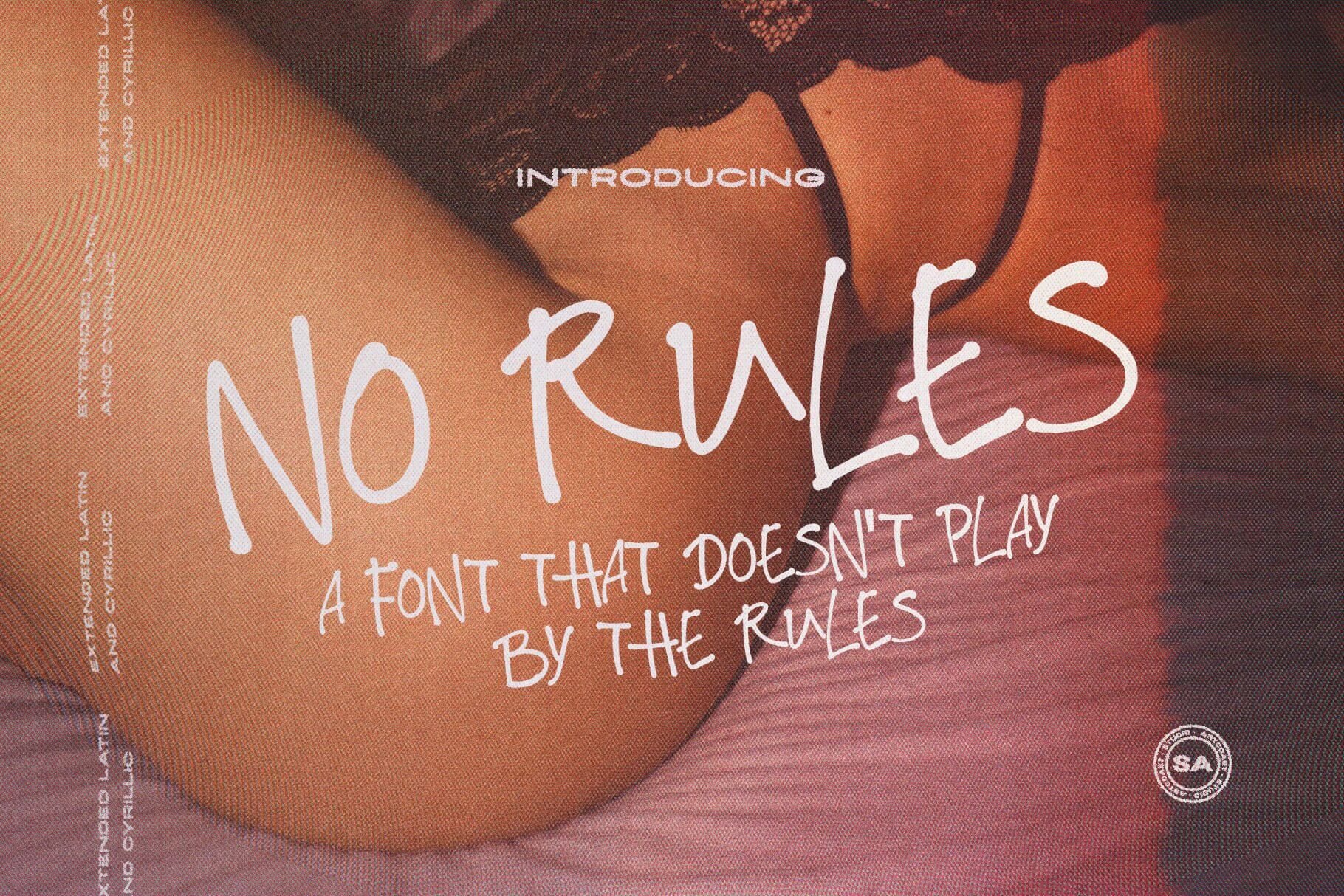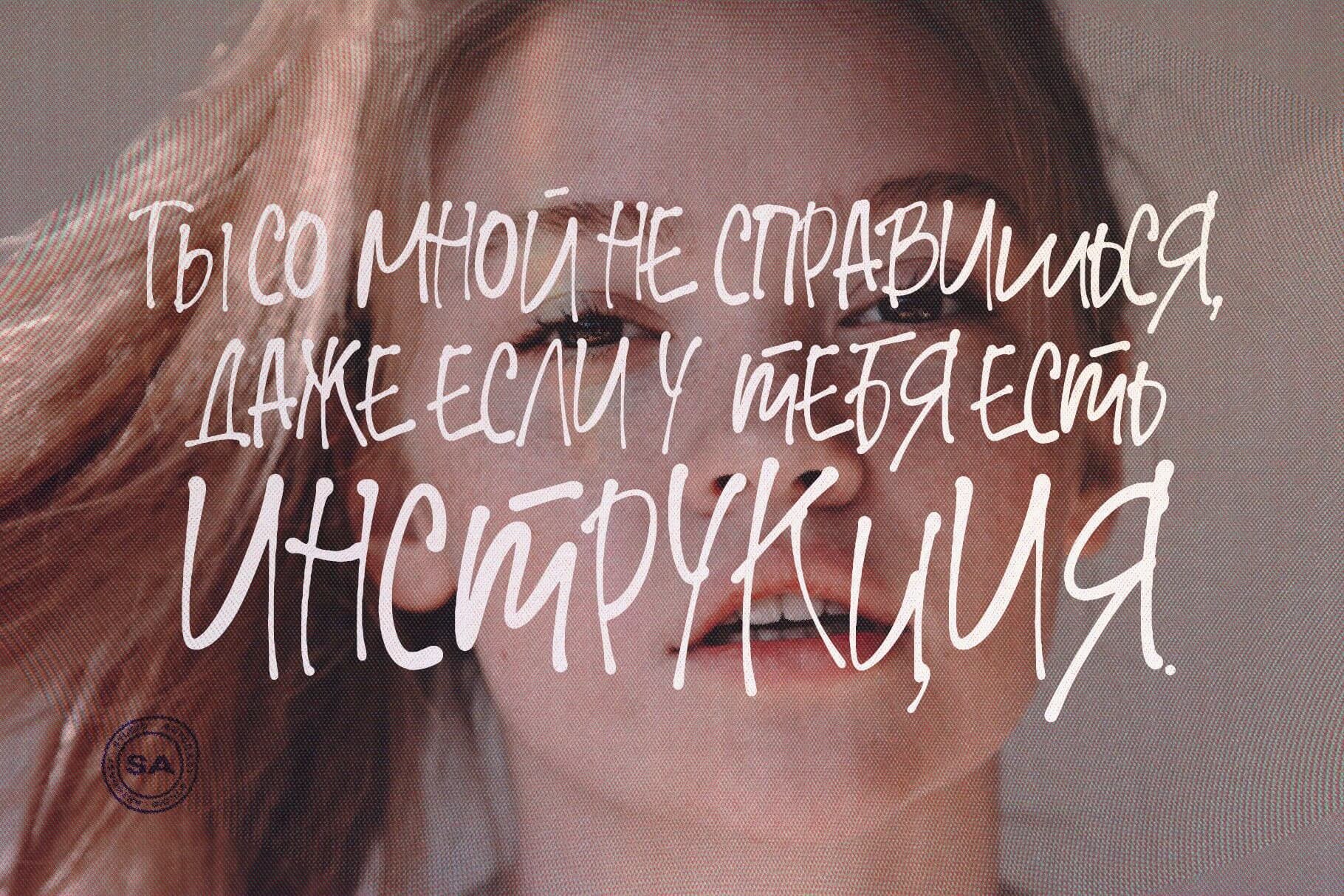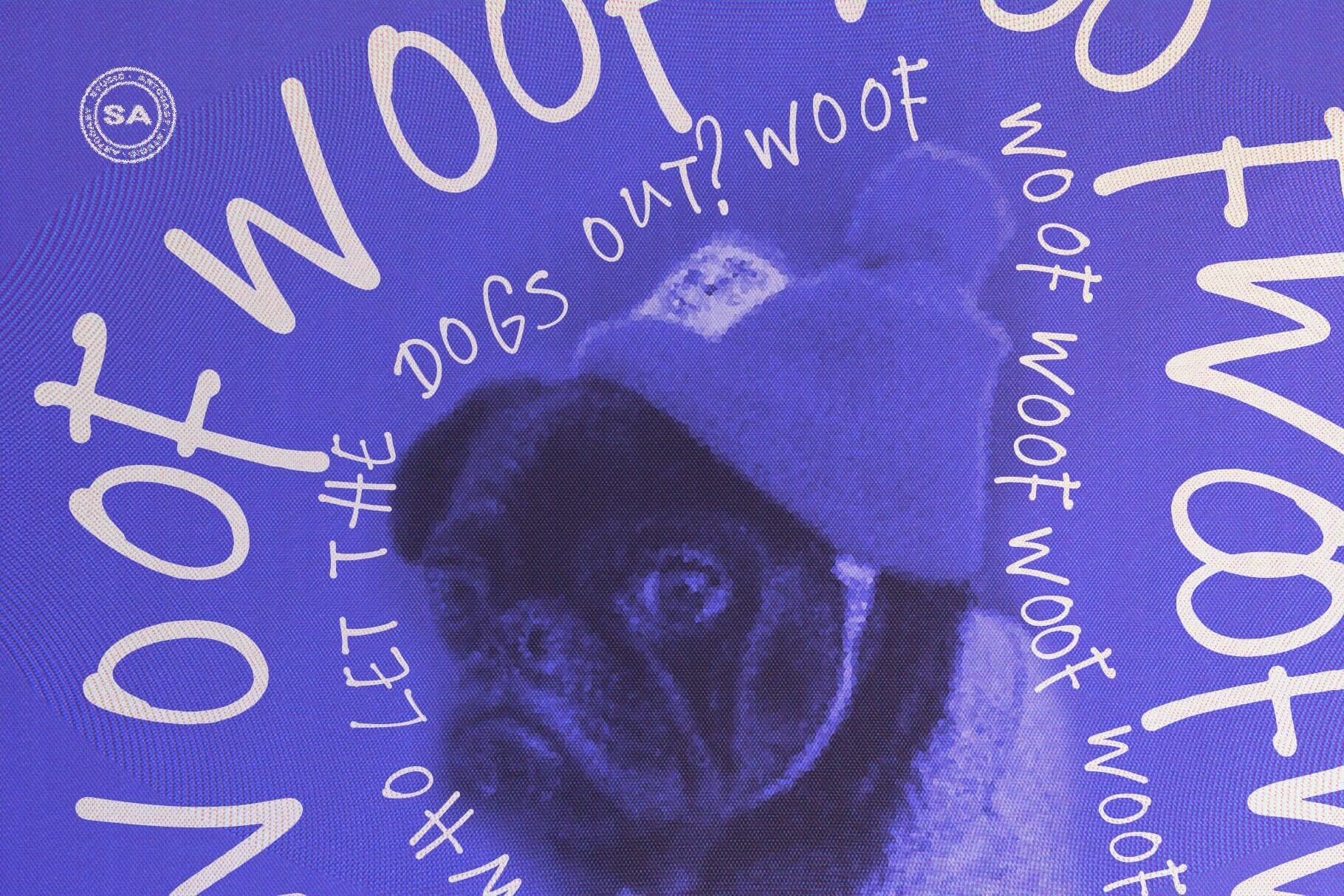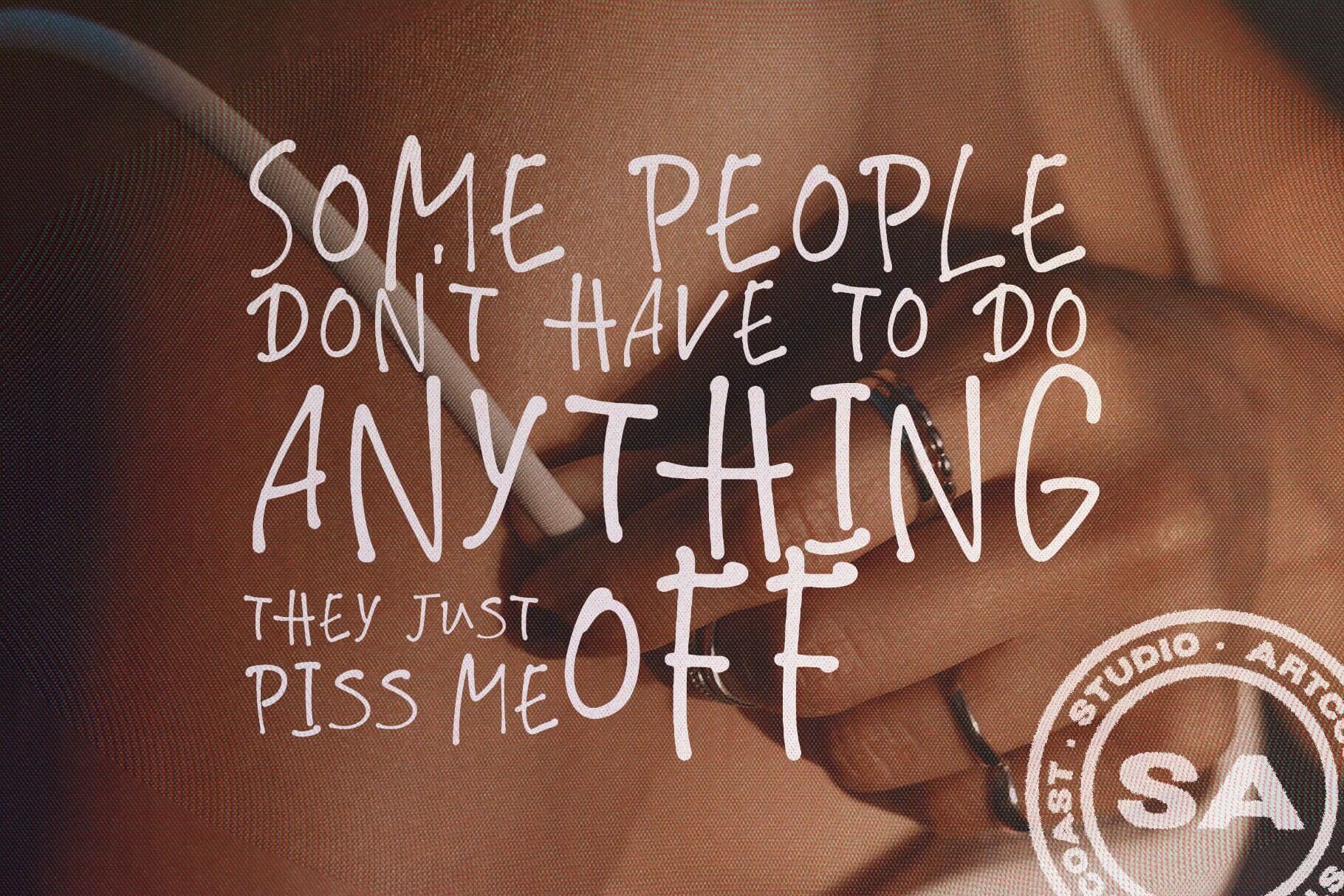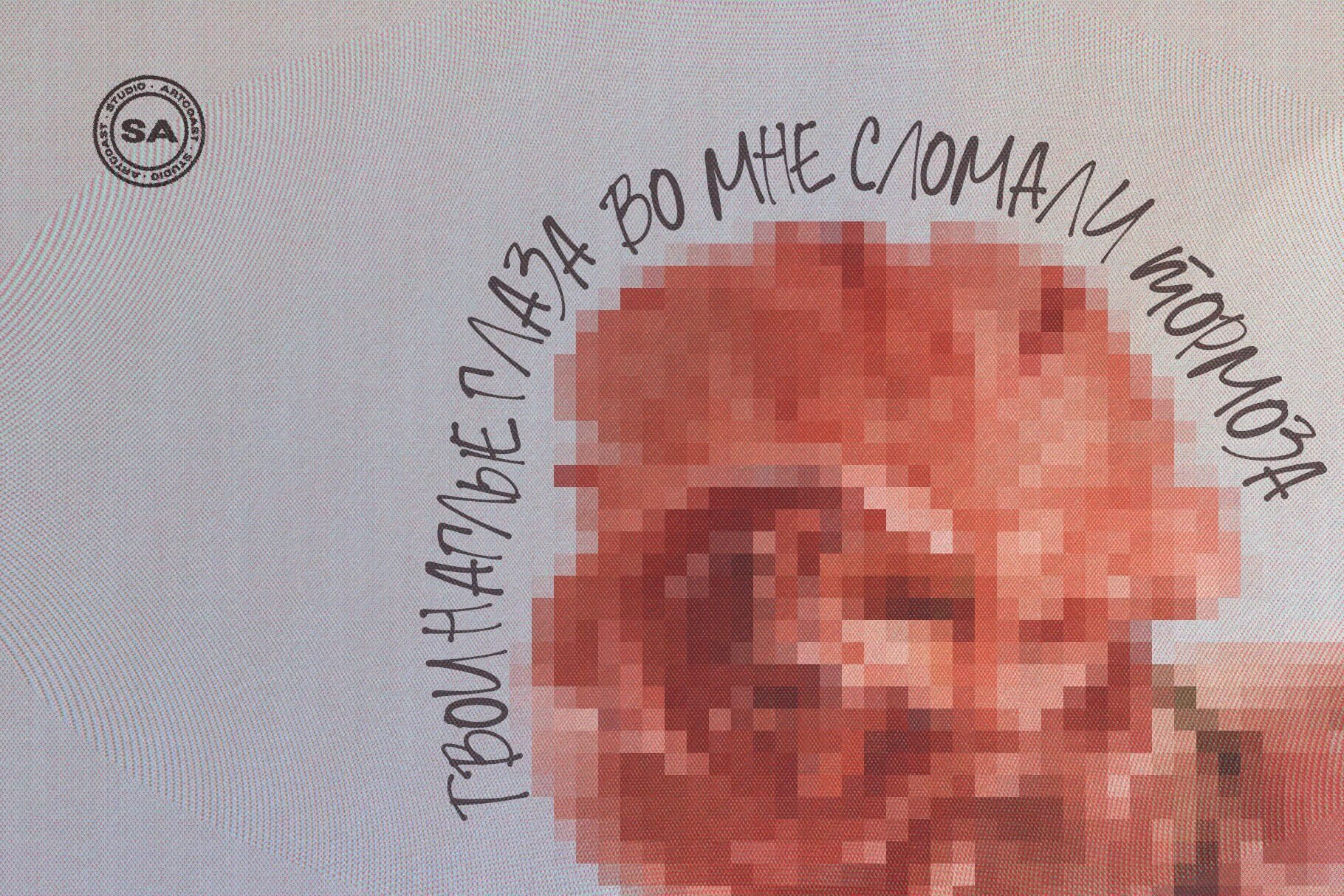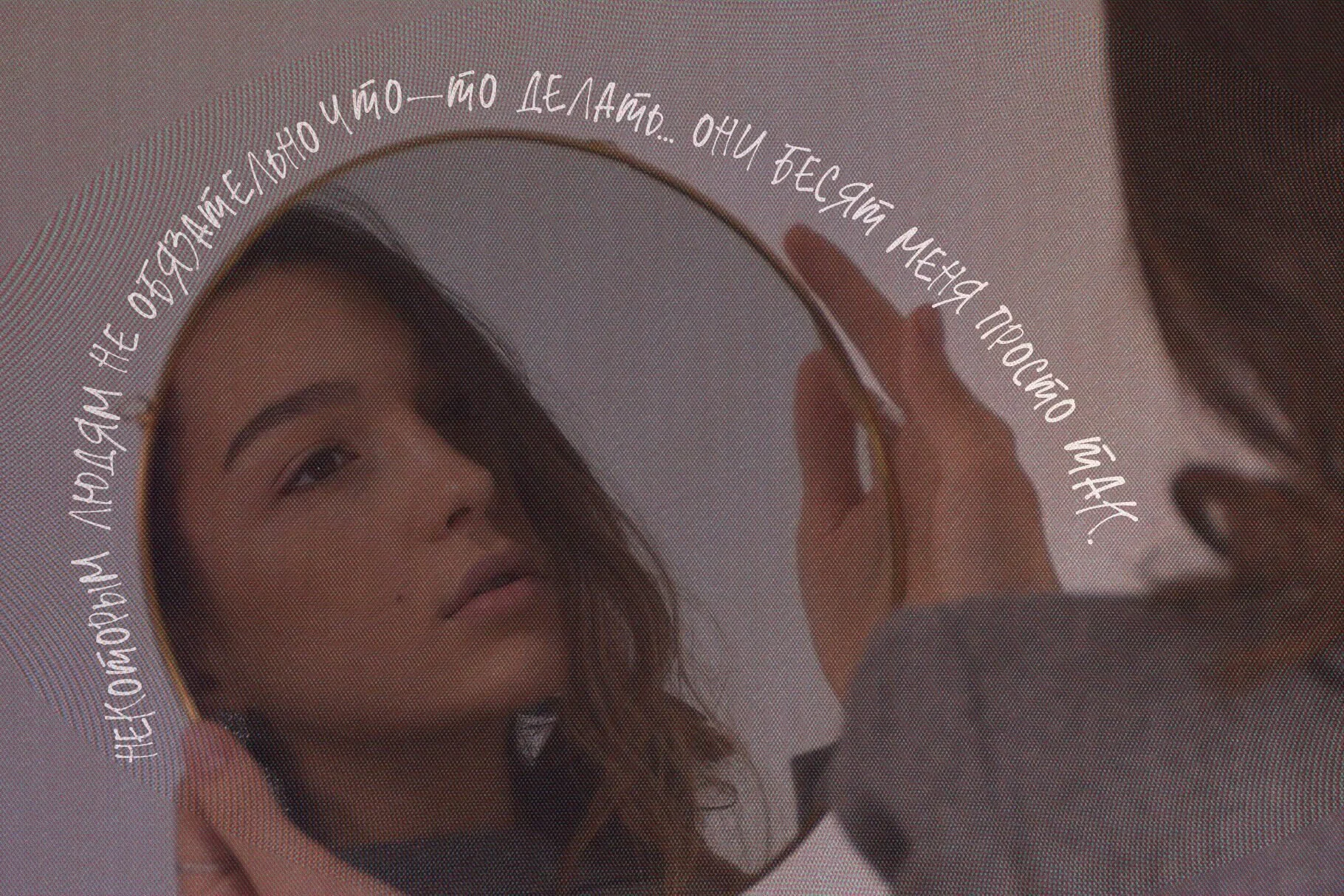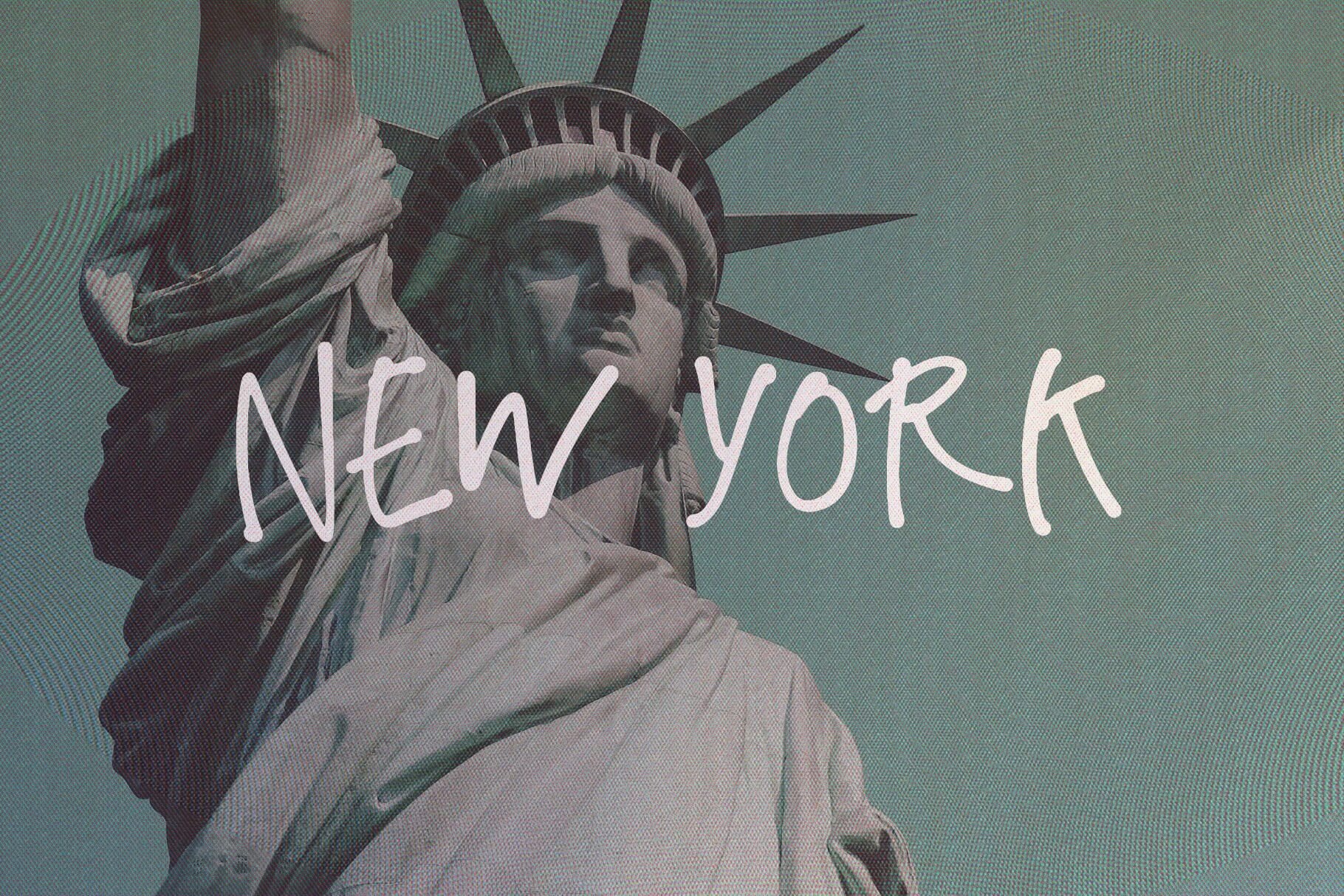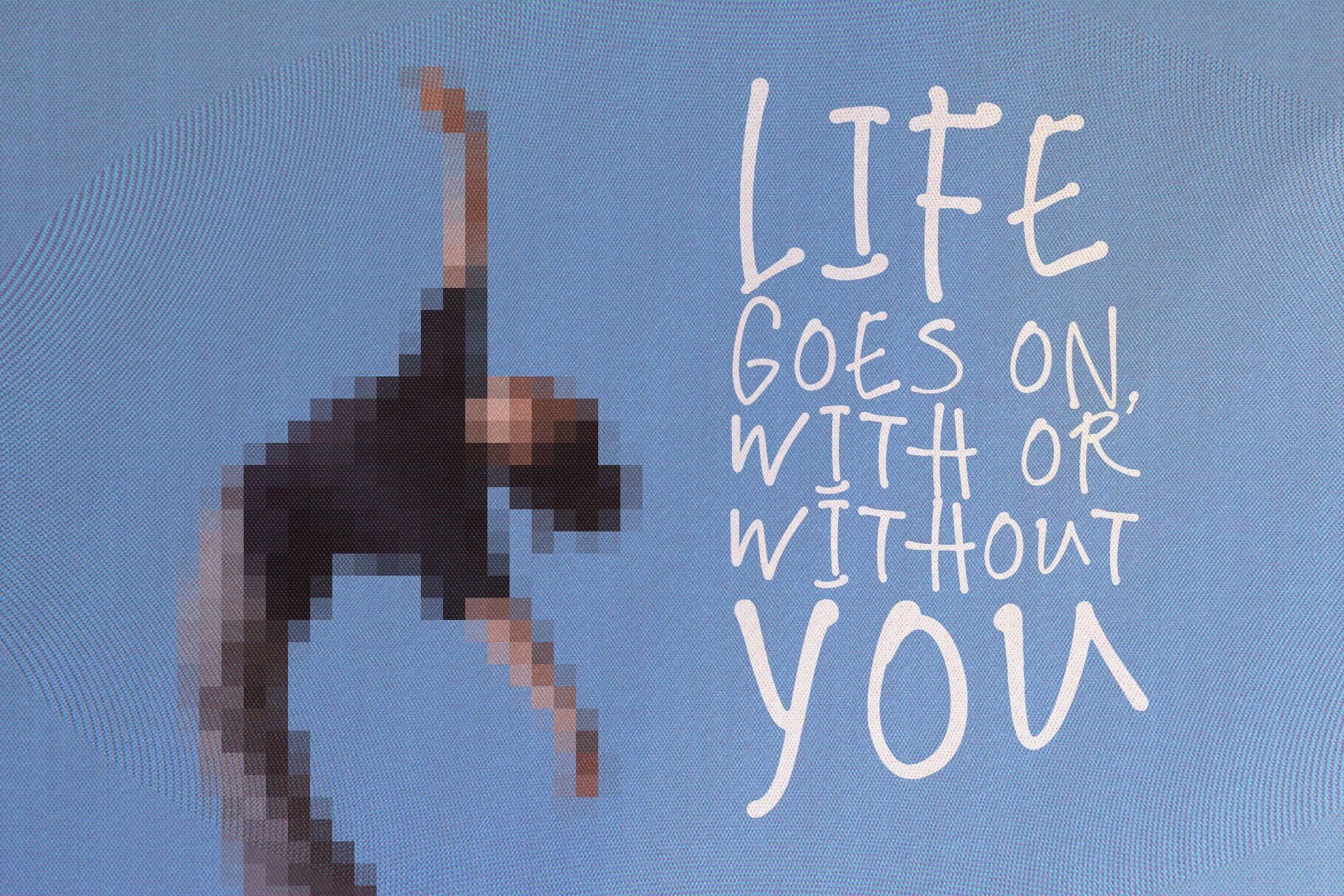
SA No Rules Handwriting Font – Cyrillic & Latin Extended
SA No Rules is a bold, playful handwriting typeface that brings a 70s-style whimsy to quotes, logos, posters, and social posts. Clean curves, lively stroke contrast, and full multilingual support let your words shout with personality.
• Latin Extended
• Cyrillic alphabet (RU)
• Punctuation, symbols, and numerals
Key Features
1. Hand-drawn brush texture for an authentic, “no-rules” look
2. Consistent baseline → perfect for headings & badges